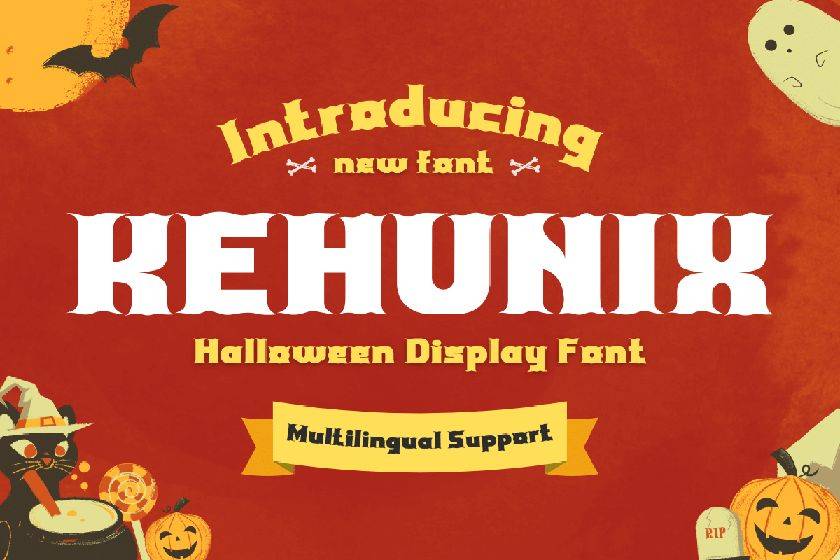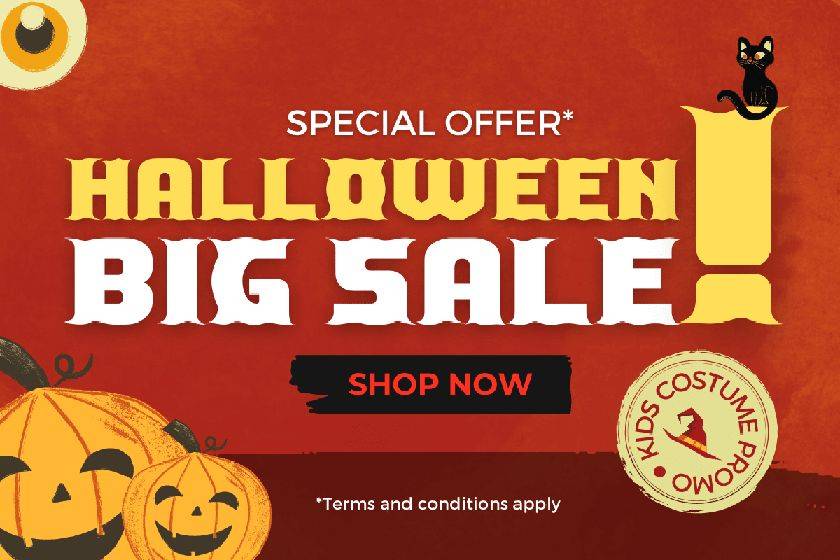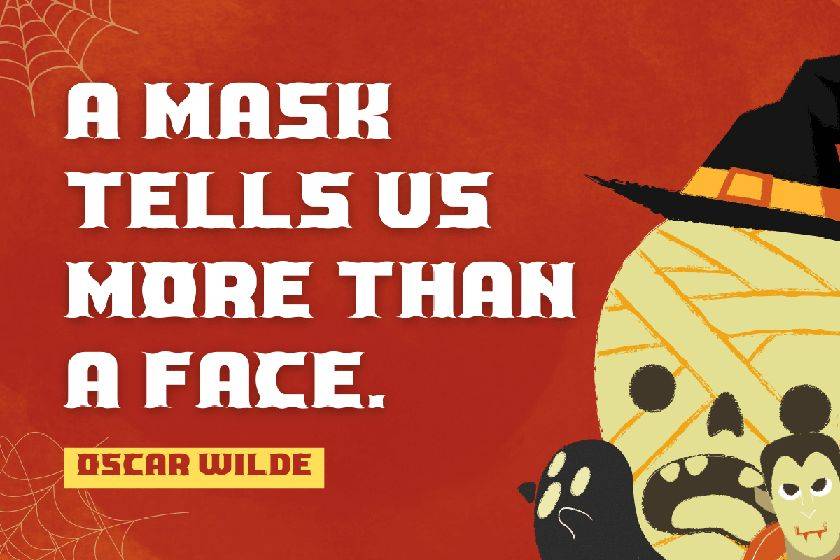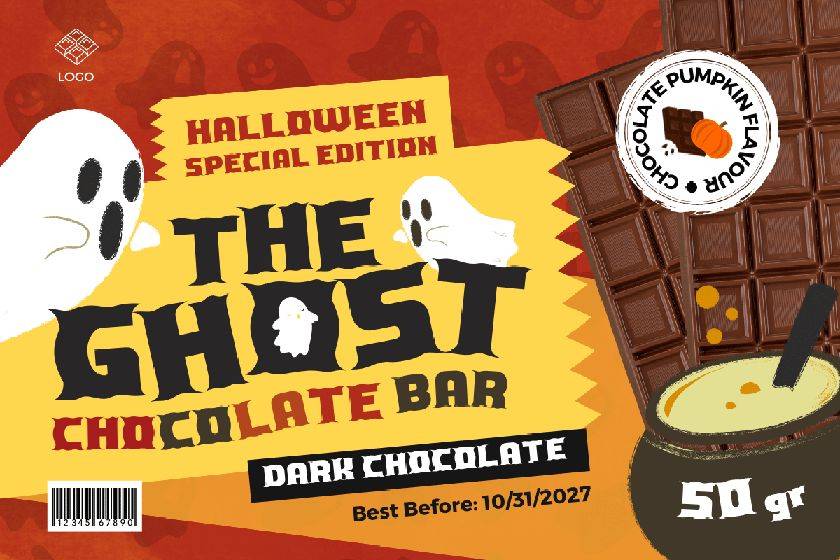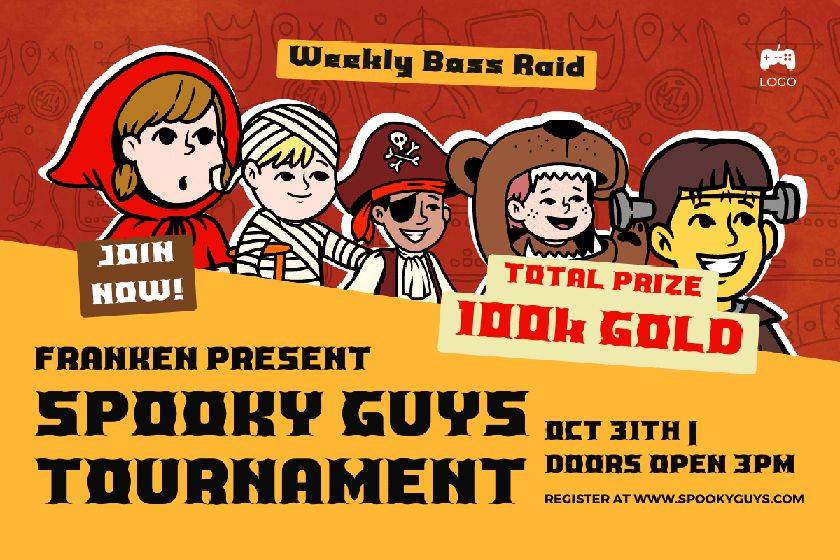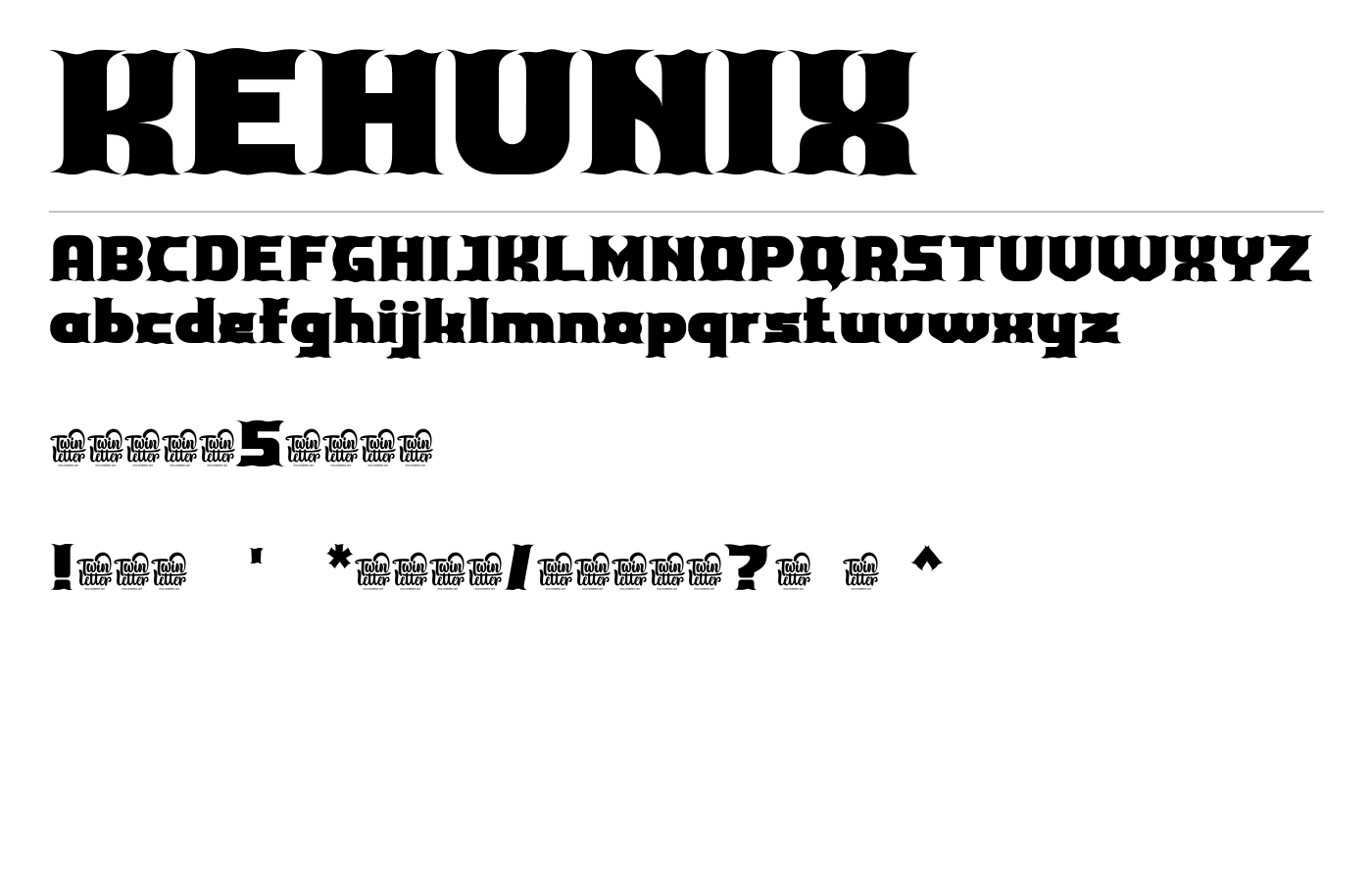
Kehunix is a bold, serif display font with a strong, vintage-inspired character that features thick, blocky letterforms with sharp, bracketed serifs. Its heavy weight and condensed width give it a powerful presence, making it ideal for logos, headlines, and branding that seeks to convey strength and a classic yet edgy style. This font works best in designs that want to stand out with a retro or gothic flair, perfect for posters, packaging, and fashion-related projects.
Kehunix Font
About Kehunix Font